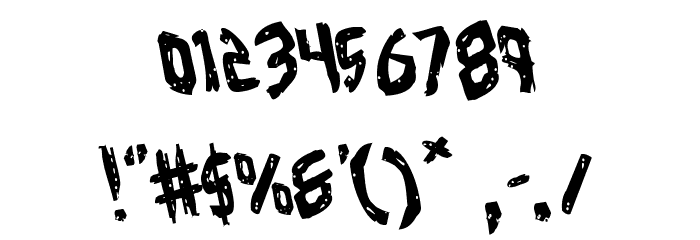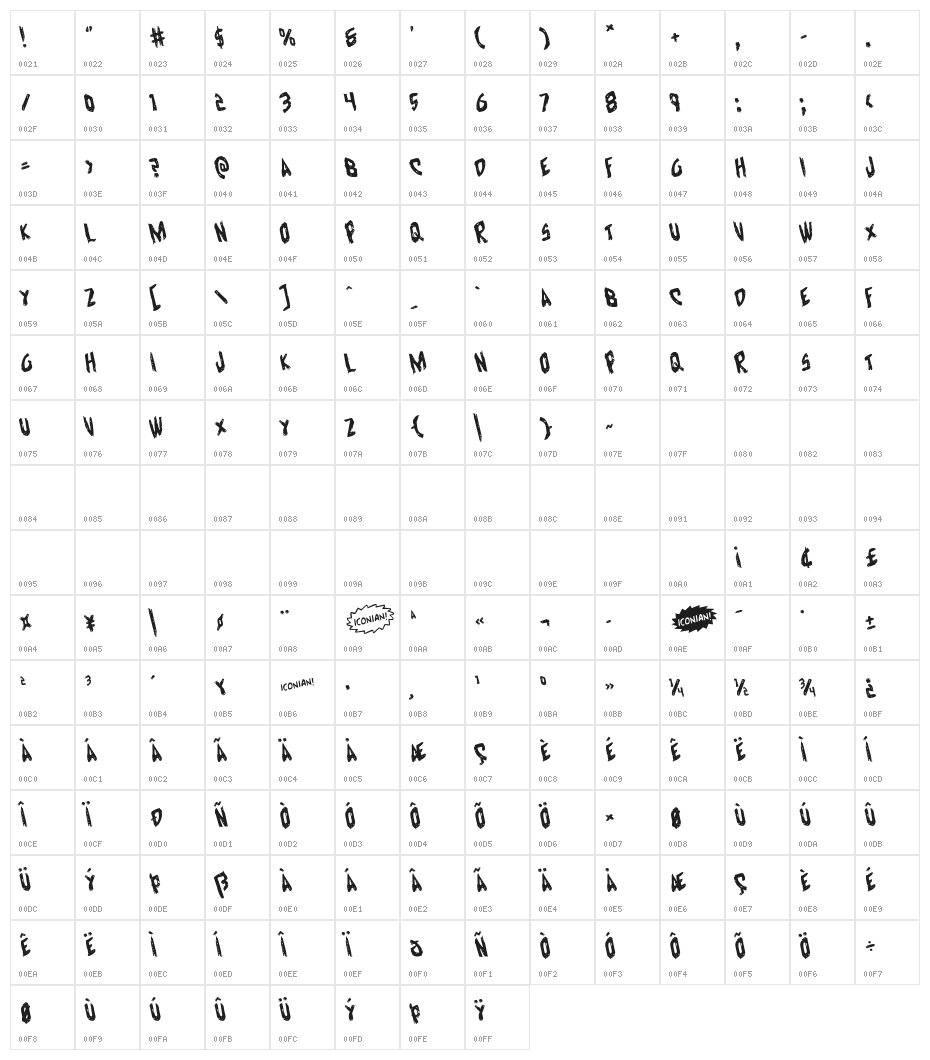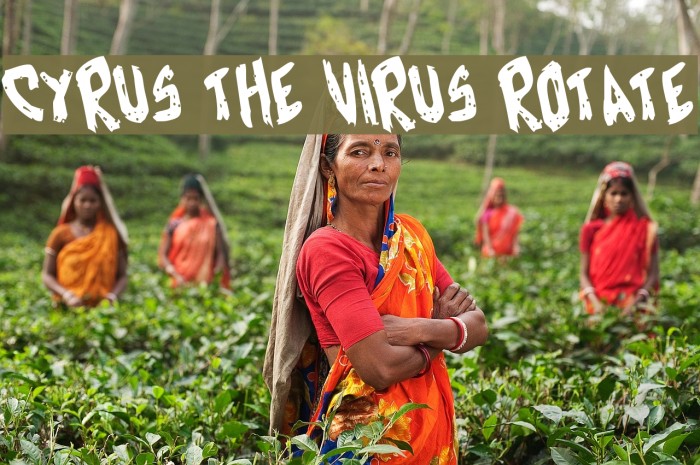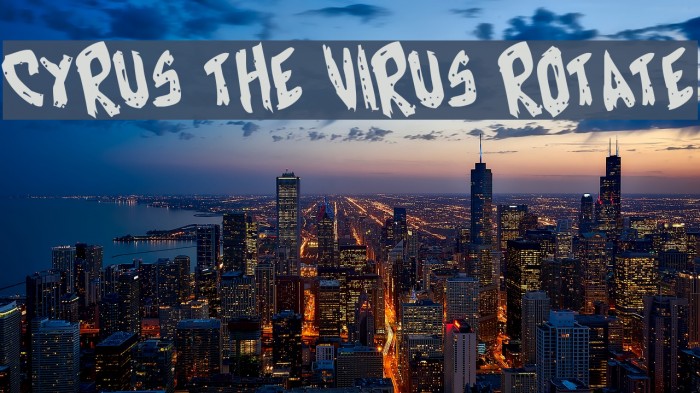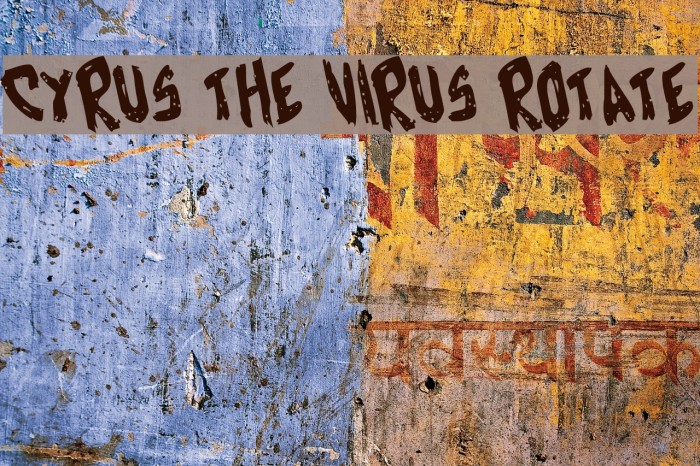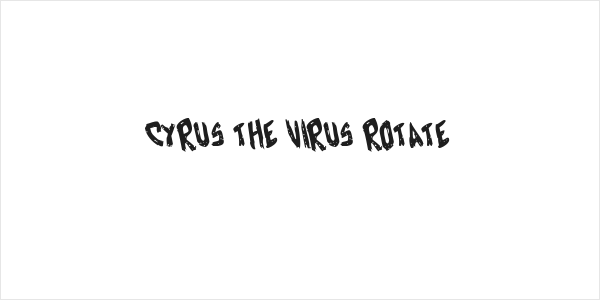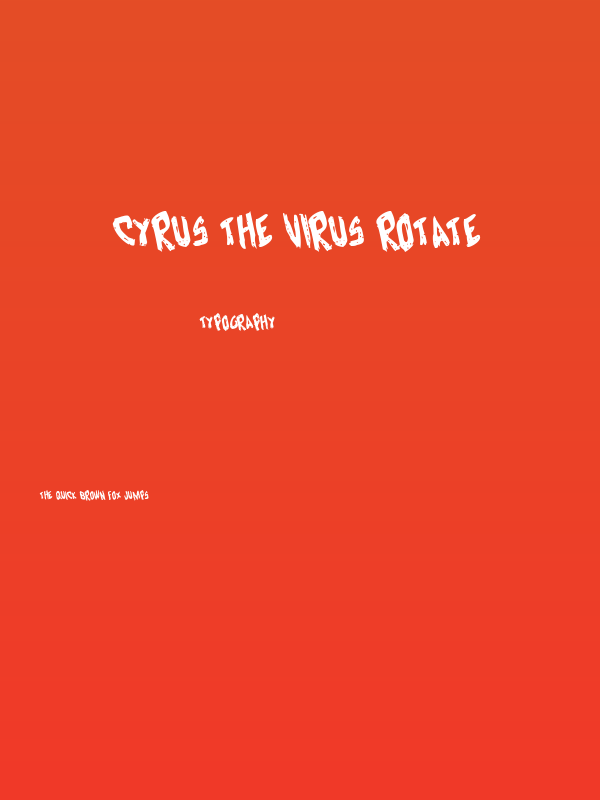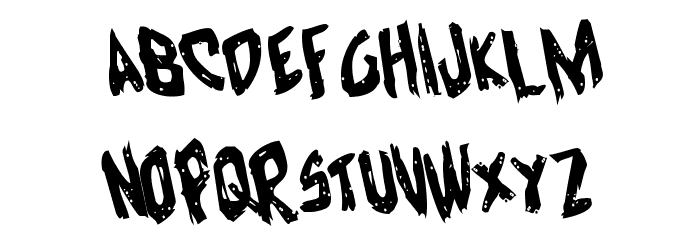
Cyrus the Virus Rotate Font
Cyrus the Virus Rotate Description
This font exudes a bold and edgy aesthetic, characterized by its jagged, irregular strokes and distressed appearance. The letters are heavily stylized, giving off a rebellious and grunge-like vibe. Each character appears to be hand-drawn with a rough texture, adding to its raw and energetic feel. The uppercase and lowercase letters maintain a consistent style, while the numbers and special characters follow suit, ensuring a cohesive look across all glyphs. This font is perfect for projects that aim to convey a sense of urgency, chaos, or alternative culture.
| Overall Style | Grunge, Edgy, Rebellious |
| Use Case | Logos, Posters, Album Covers |
| Proposed Projects | Ideal for music album covers, streetwear branding, skateboarding graphics, or event posters. |